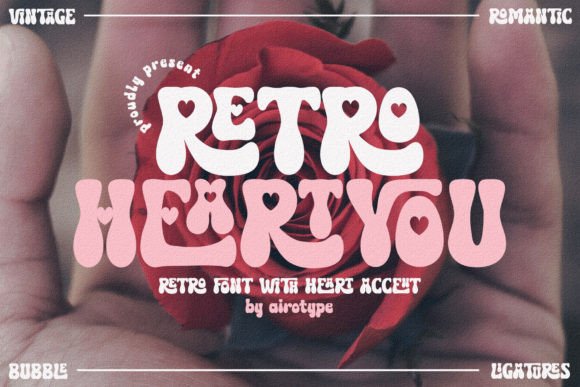
\n\nLooking for the perfect display font to take your creative projects to the next level? Look no further than Retro Heart You Font! Created by airotype, this font is one of the Best Fonts For Pen On Cricut, and it's easy to see why.\n\nWith its sweet and fun design, Retro Heart You Font is sure to put a smile on your face. This display font has a quirky, whimsical vibe that's perfect for adding a little bit of funk to any project. And with its adorable groovy accent, this font is sure to stand out from the crowd.\n\nWhether you're looking to create eye-catching logos, stylish posters, or funky t-shirt designs, Retro Heart You Font is the perfect choice. Its versatility makes it ideal for a wide range of projects, while its unique style ensures that your creations will always be memorable.\n\nSo why wait? Download Retro Heart You Font today and let your creativity run wild! With its groovy, hippie touch, this font is sure to take your projects to the next level.\n\n